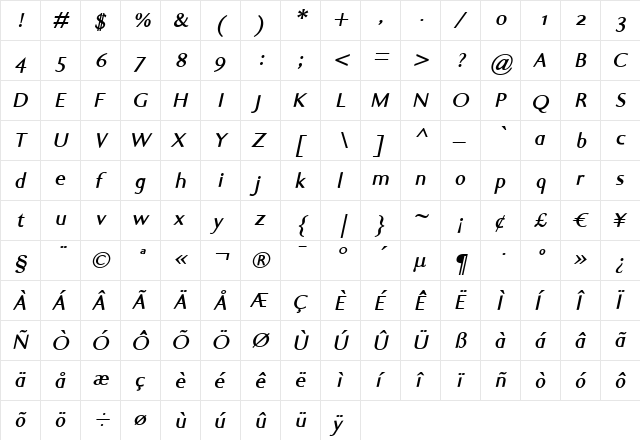
Ela Sans Bold Italic
Design Context for Ela Sans Bold Typeface
Ela Sans Bold takes a measured approach to typography — its balanced proportions and neutral character make it a reliable workhorse for both digital and print work. Its italic angle brings a sense of urgency and motion to the letterforms. The heavy weight commands attention and anchors typographic hierarchies.
Pro Tip: Use Ela Sans Bold for emphasis, pull quotes, and subheadings where its slanted energy can add rhythm to the layout.